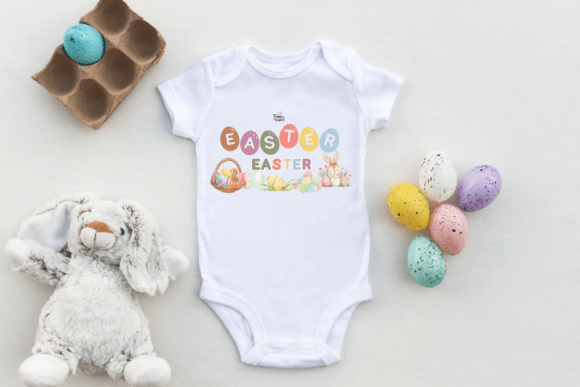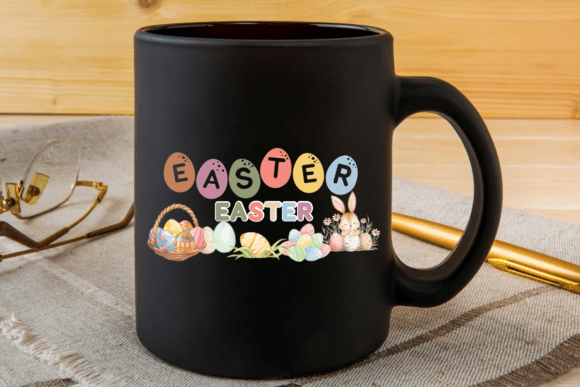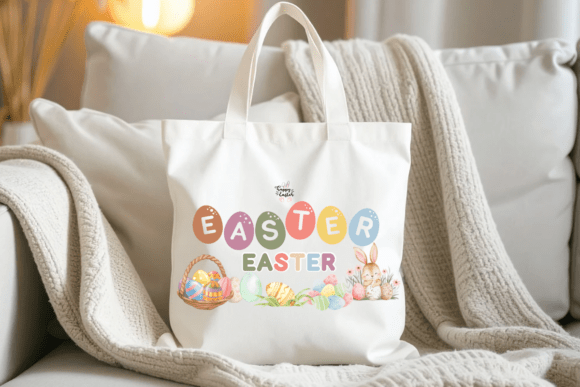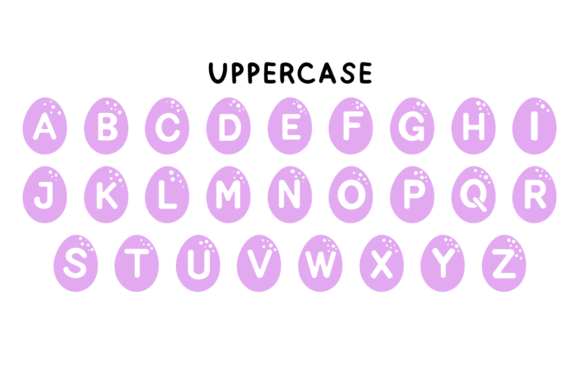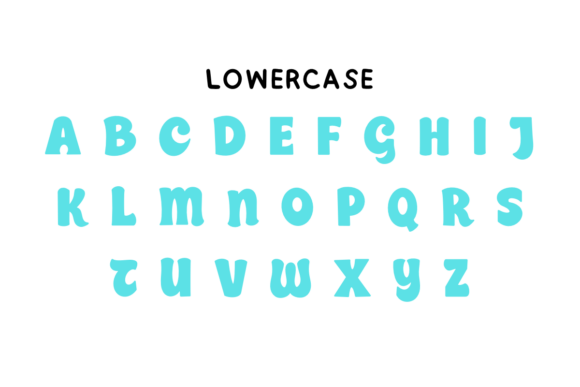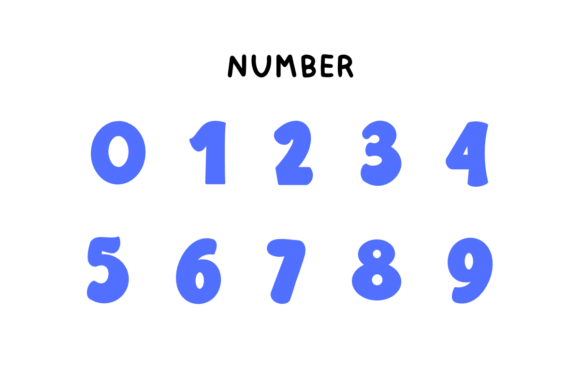
Introduction to Kids Easter Egg Font
Immerse yourself in the whimsical charm of the Kids Easter Egg font.
Gracefully oscillating between playful and stylish, this decorative typeface is perfect not only for journaling your cherished moments or personalizing your festive greeting cards, but also gives a captivating allure to a wider range of design elements Extend its magic into your banners, mug designs, stationery, tees and social media posts, delivering a touch of spontaneity to your creative palette.
Key Features of Kids Easter Egg Font
Why Choose Kids Easter Egg Font?
Kids Easter Egg Font offers exceptional quality and versatility, making it a valuable addition to your design toolkit. Whether you’re creating for personal projects or commercial use, Kids Easter Egg Font delivers professional results.